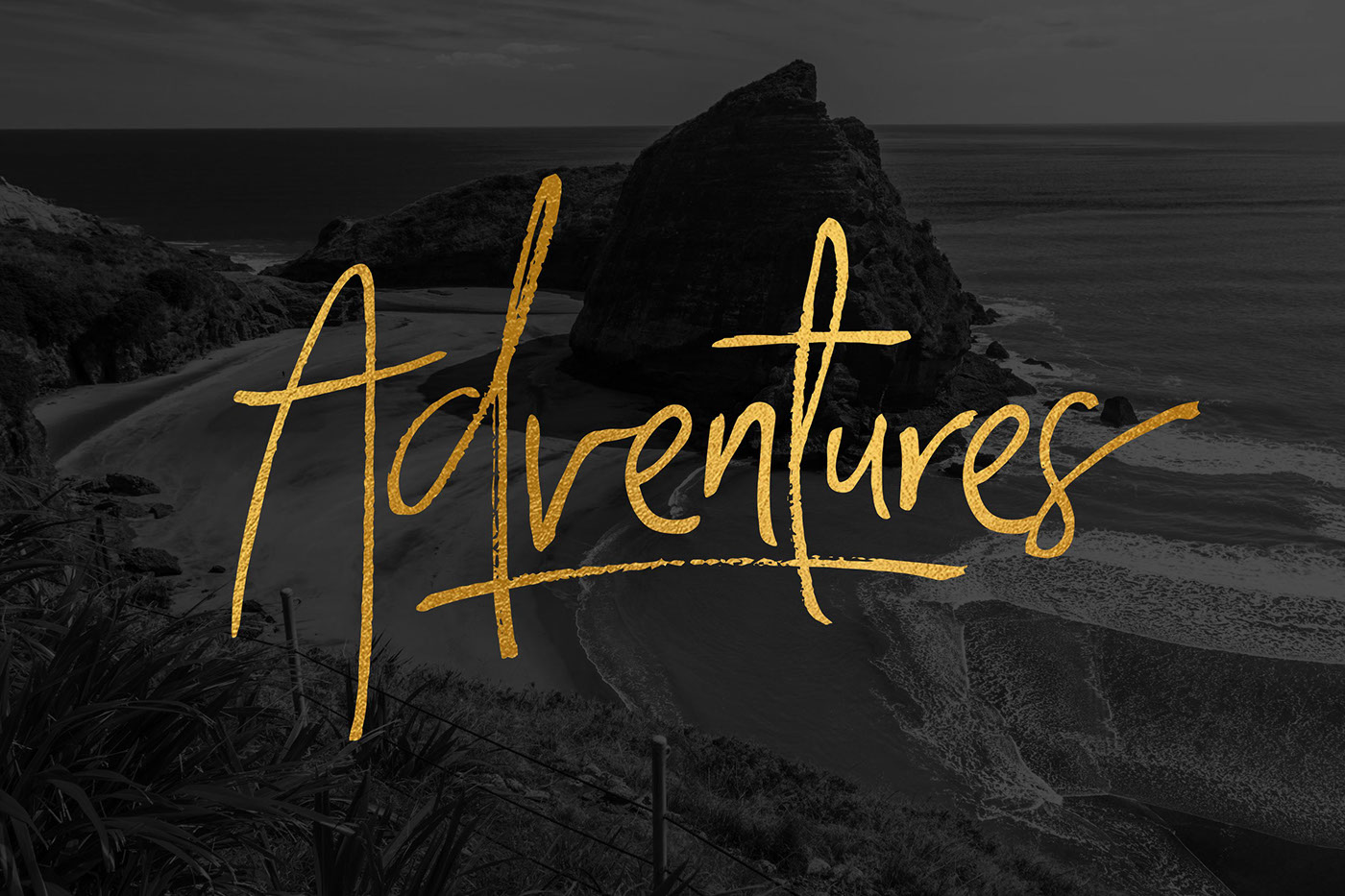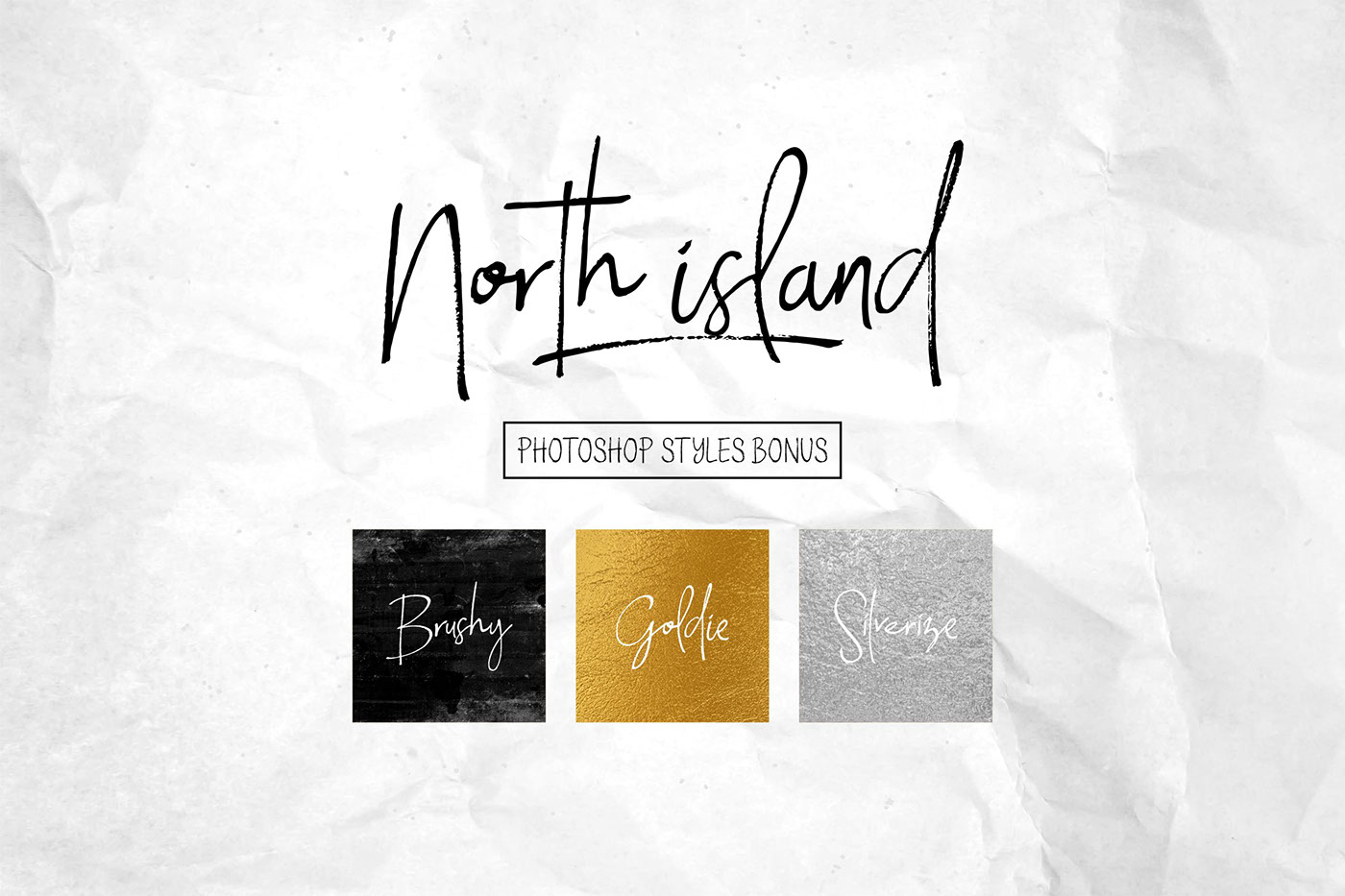
North Island
North Island Handwritten Font Duo
North Island is the new creation from Zerowork Studio, this typeface is an expression of handwritten. Dedicated to enrich your creations in the work. to make it look different and more interesting. Made with two type of font and swash as the amplifier character. Also we adding the Photoshop styles as a bonus to adding more aesthetics of your designs.